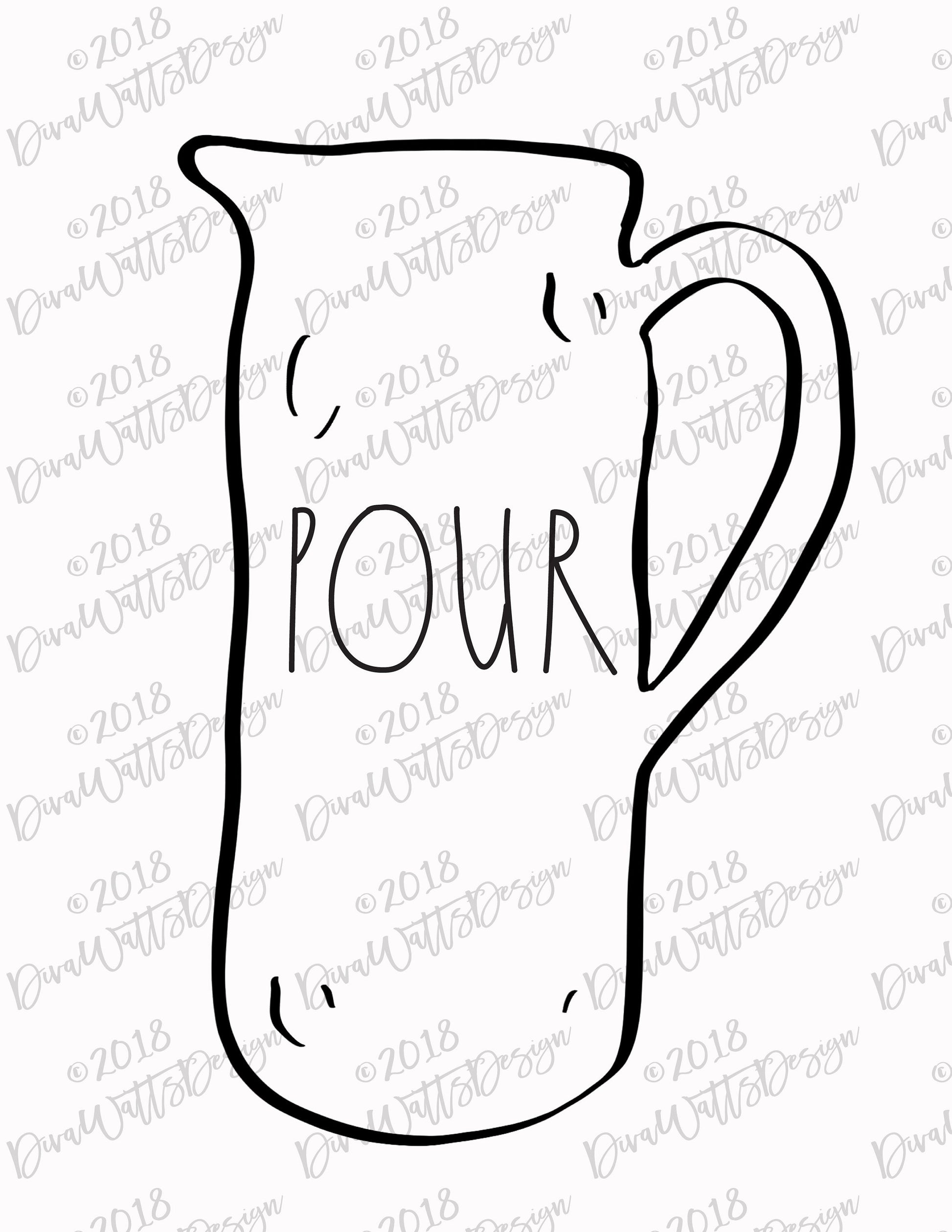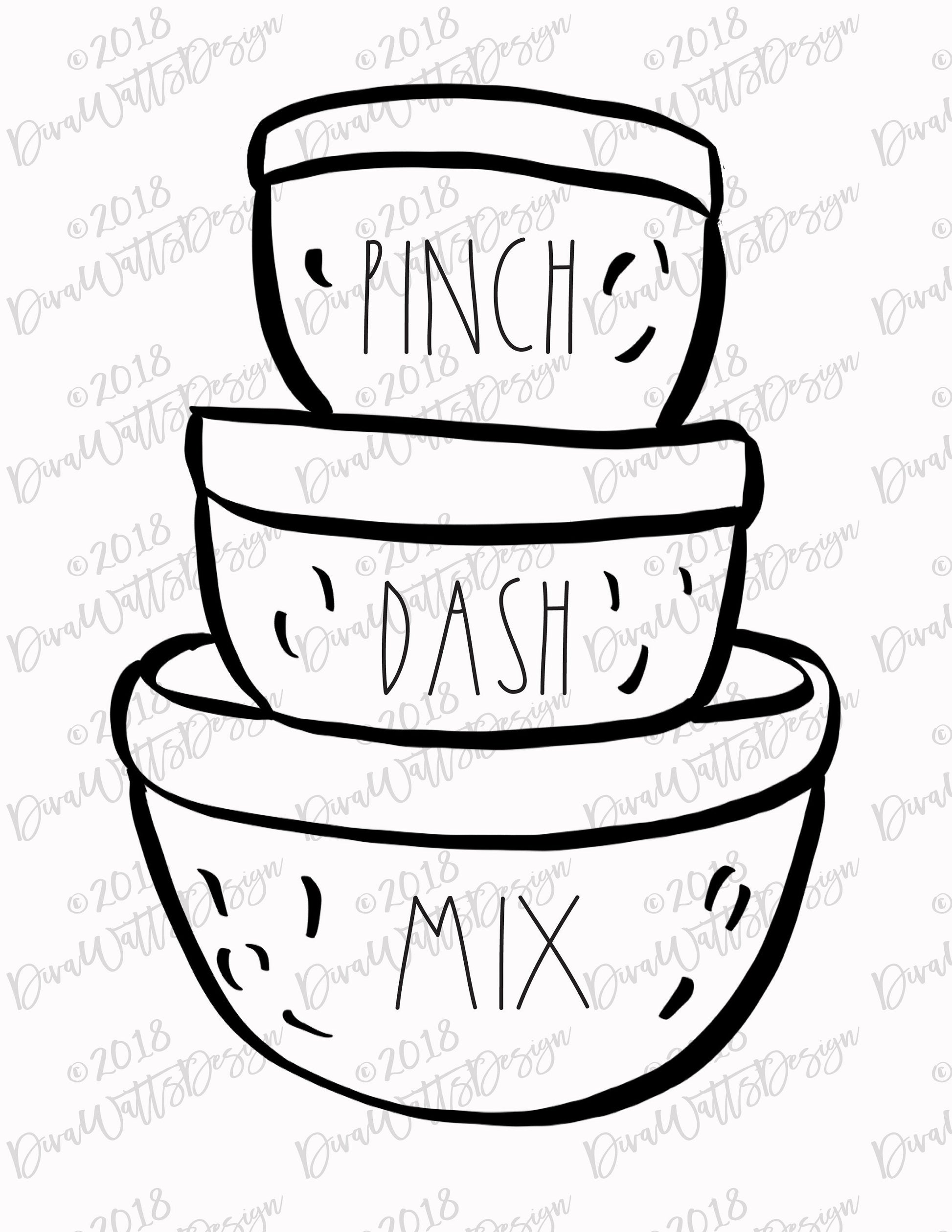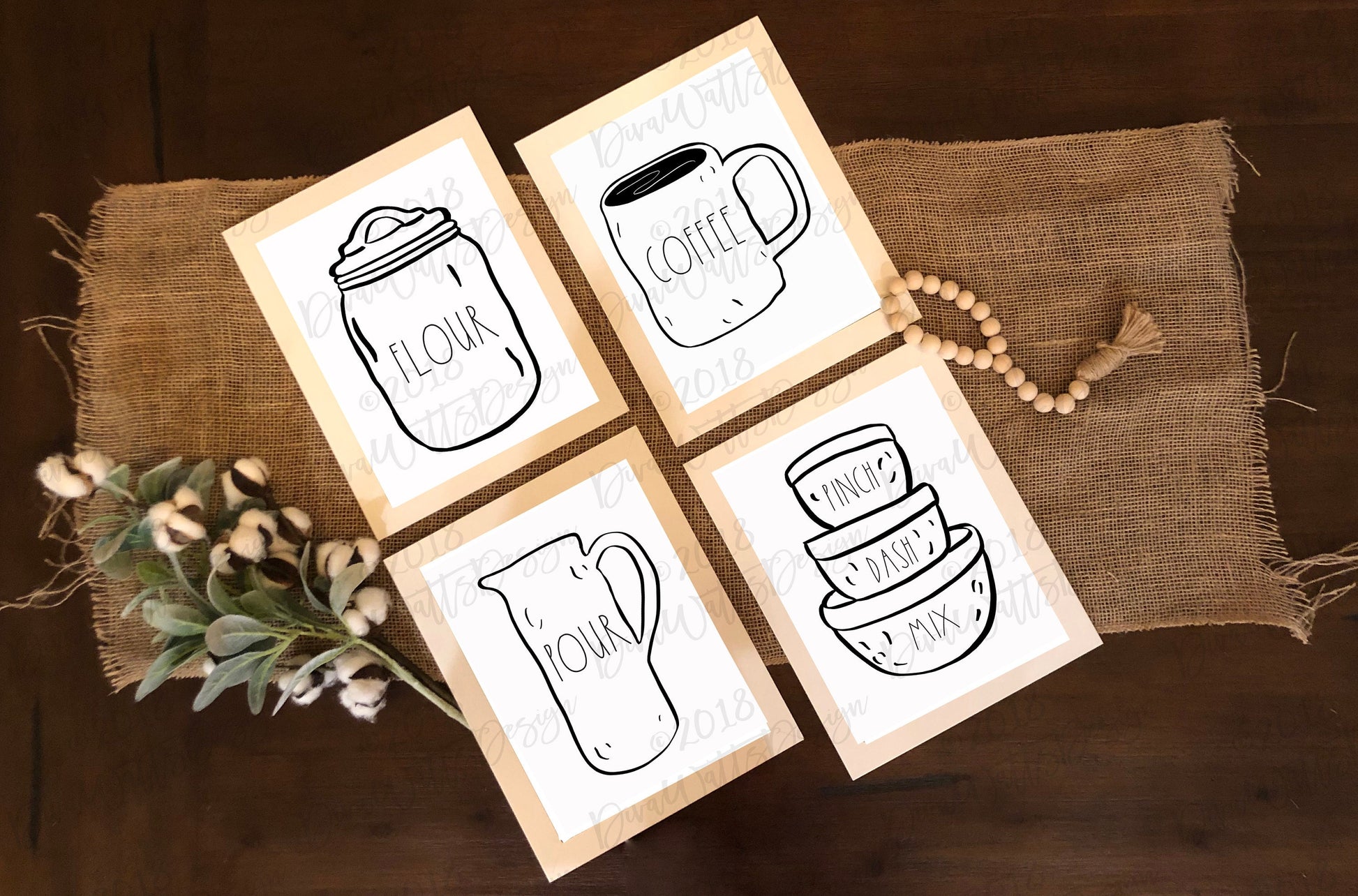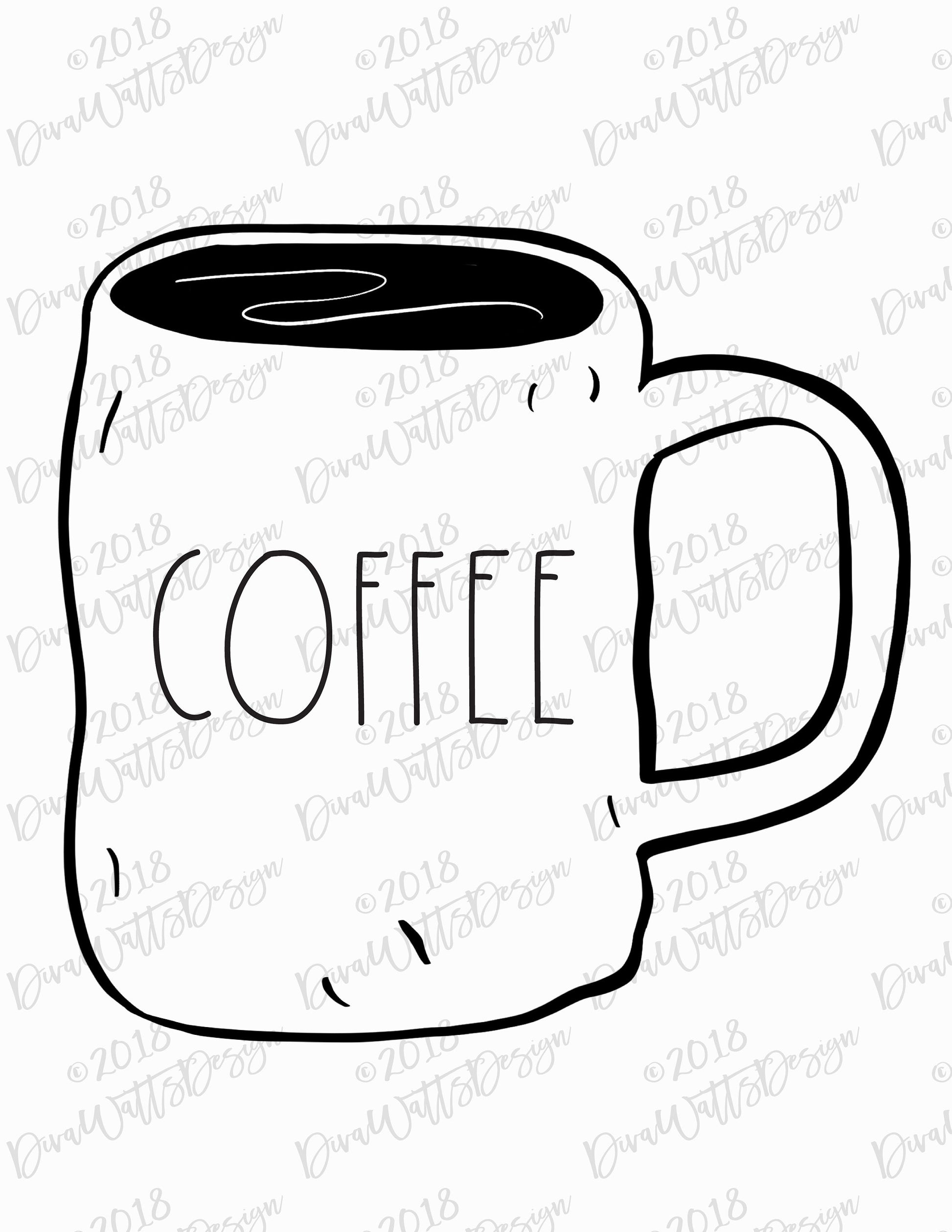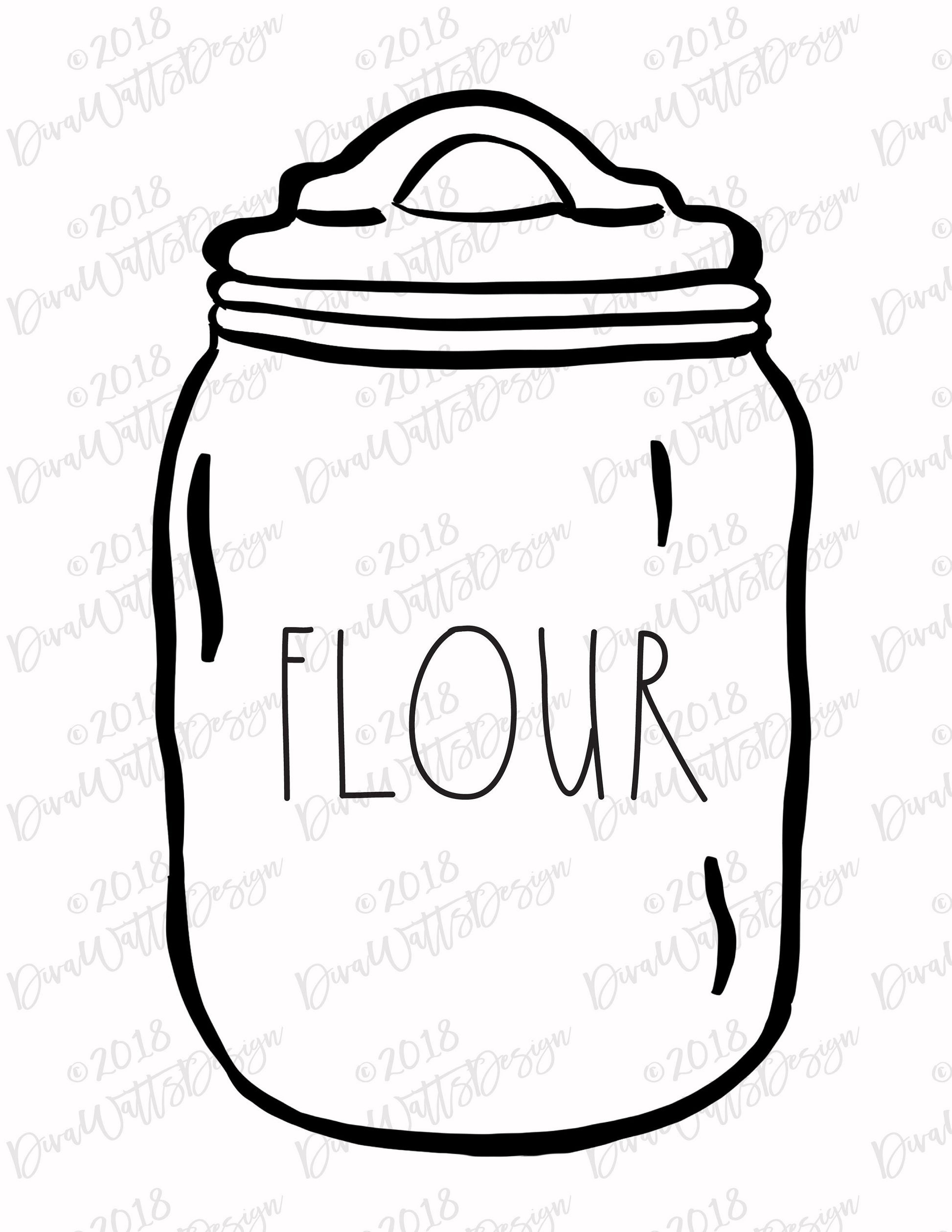
Farmhouse Pottery Printables Set of 4 Instant Download Kitchen Artwork Skinny Font JPG PDF AI Files Included
Set of 4 printables inspired by the minimalist look of farmhouse style pottery.